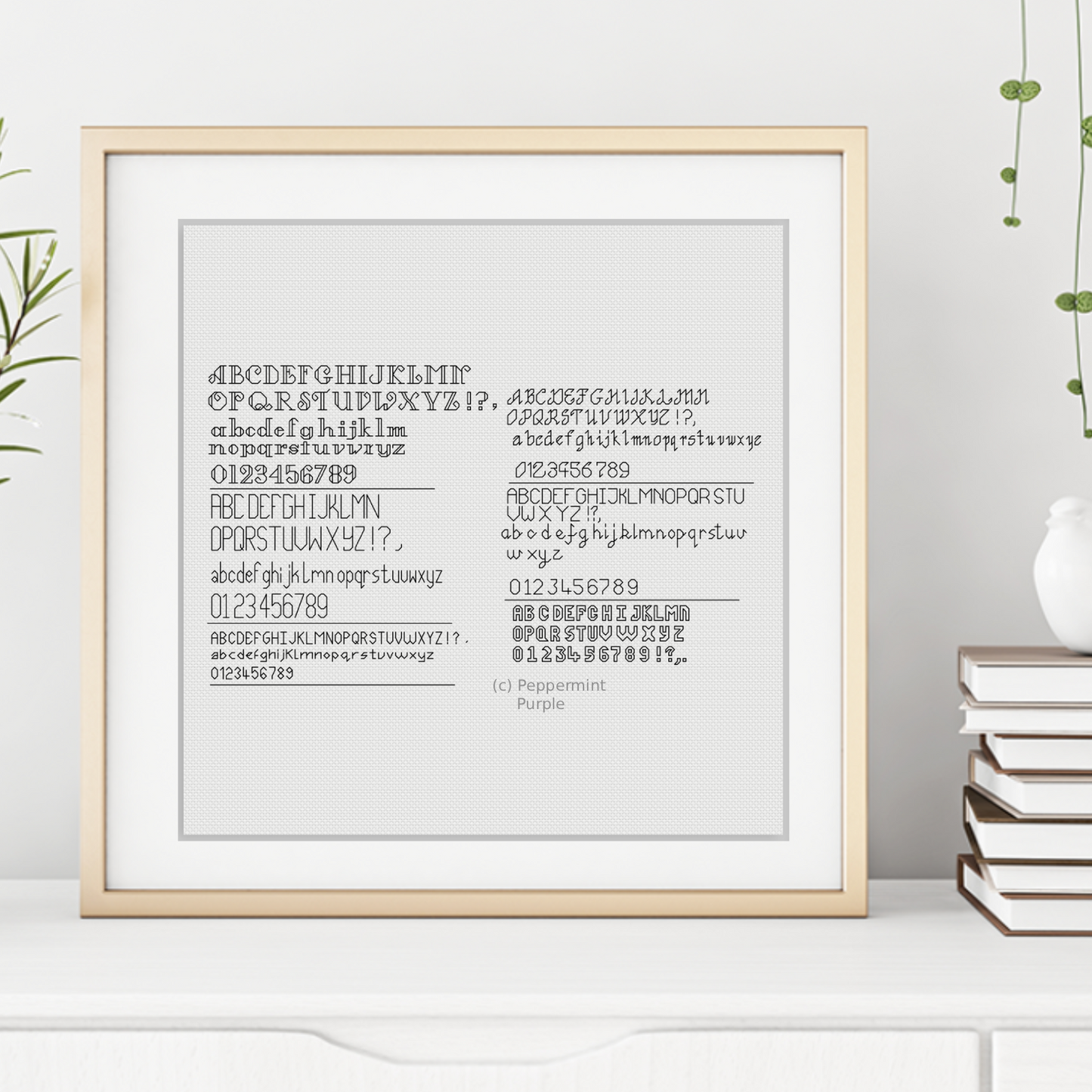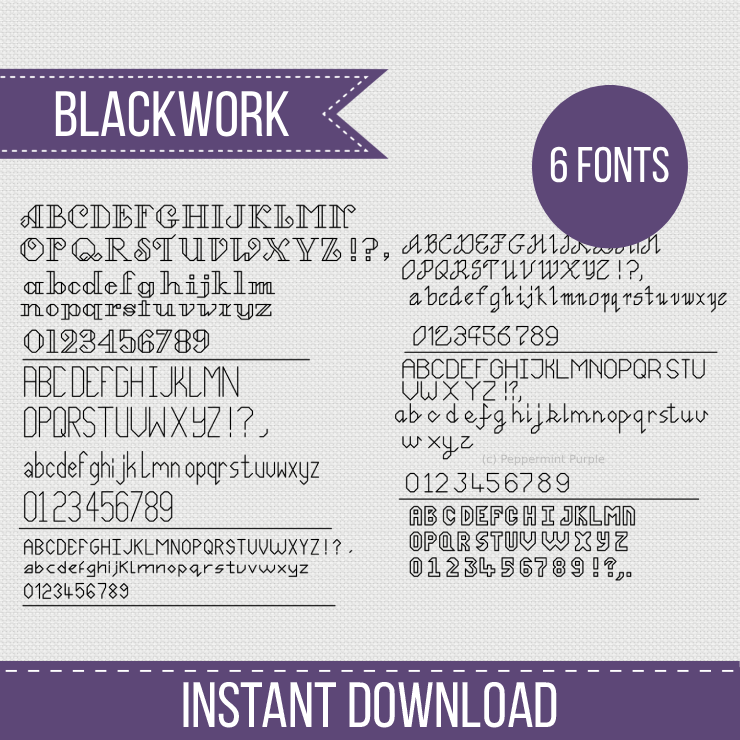
6 Various Style and Size Backstitch Fonts.
Ideal for adding to pretty much any design to make it perfectly personalised.
You can add to any design you like to create your own personalised wedding gift, or New Baby gift etc, the list is endless.
FONT 1 - 6 Stitches Tall
FONT 2 - 8 Stitches Tall
FONT 3 - 4 Stitches Tall
FONT 4 - 5 Stitches Tall
FONT 5 - 5 Stitches Tall
FONT 6 - 5 Stitches Tall
Type of Stitch: Blackwork
Number of Colours: 1
Size: Small (up to 84 stitches)
Skill Level: 2 - A bit fiddly
This design does not contain any fractional stitches